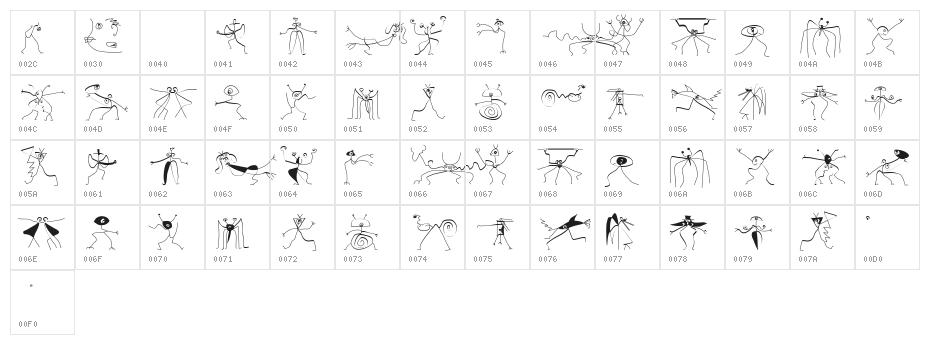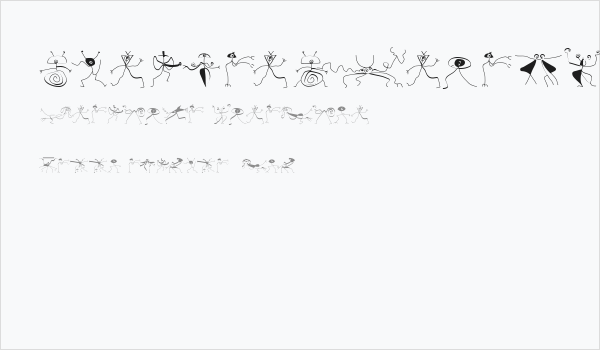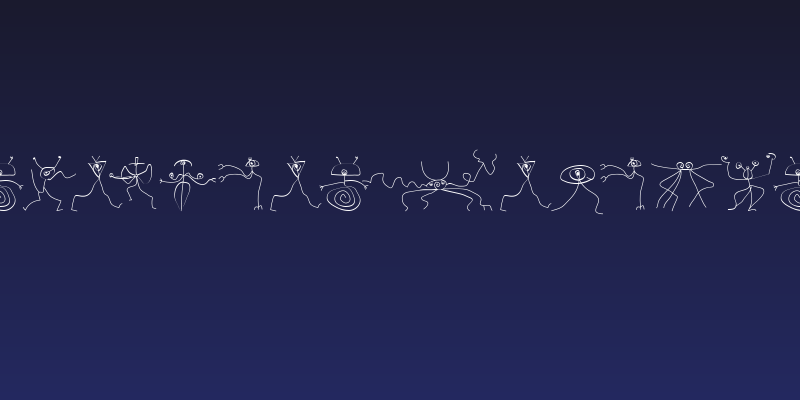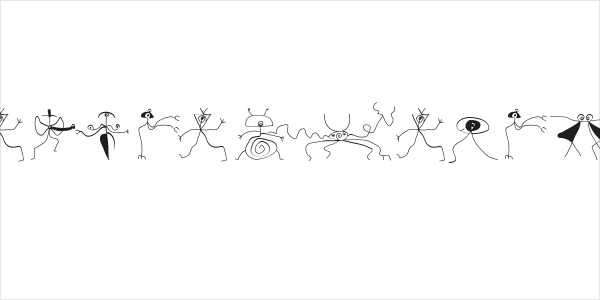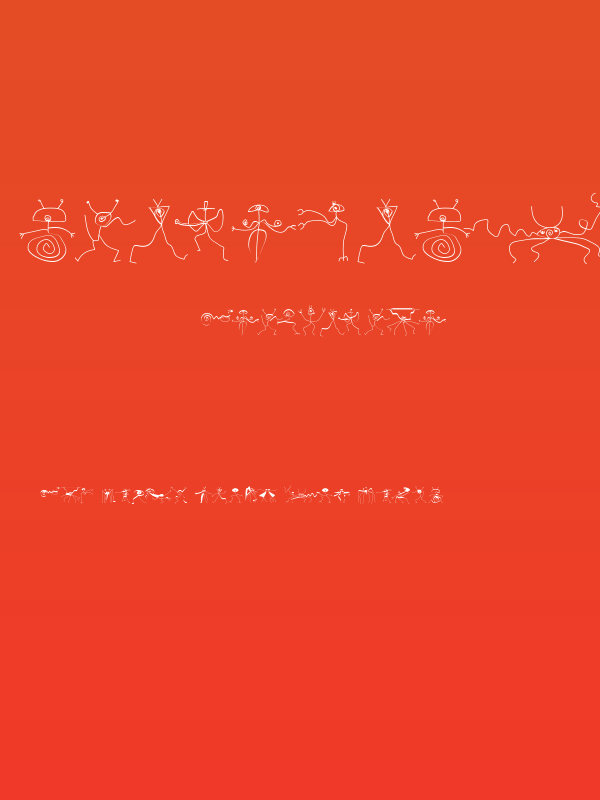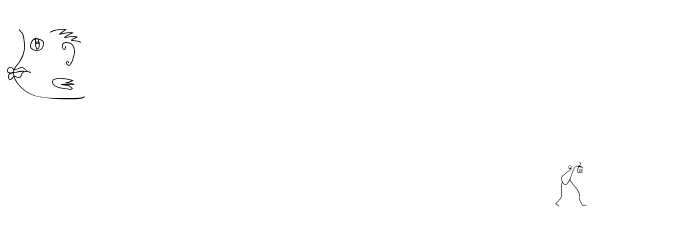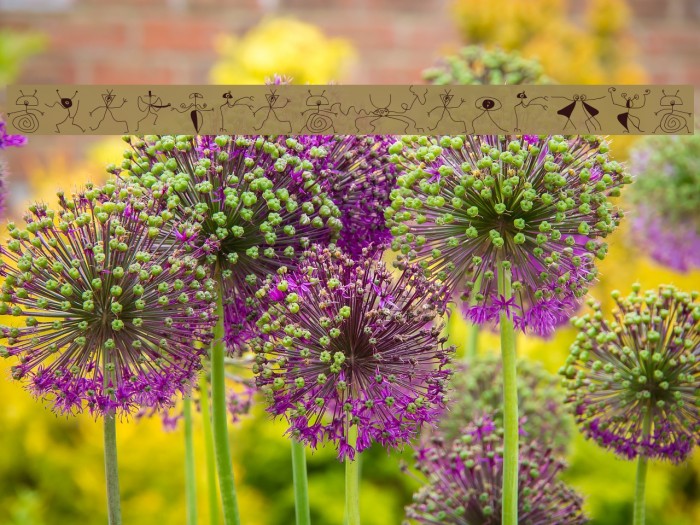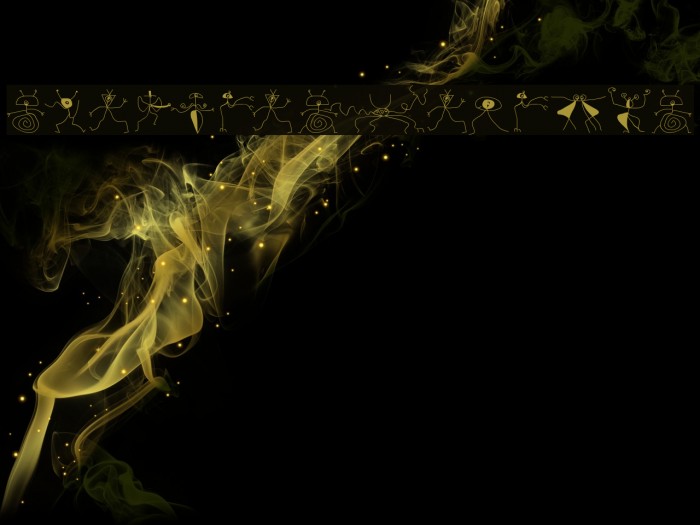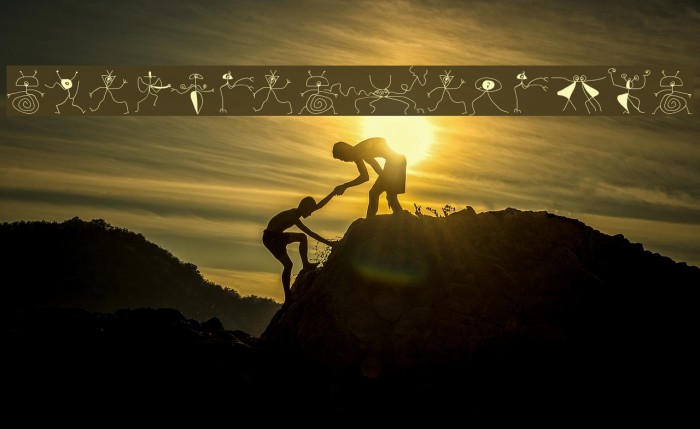
SprayersFriends Font
SprayersFriends Description
A whimsical, hand-drawn font composed of playful stick-figure characters and symbols, each letter and number represented by a unique, expressive figure with varying poses and accessories, giving a lively and animated appearance.
| Overall Style | Decorative, Whimsical, Artistic |
| Use Case | Logos, Posters, Invitations, Art projects |
| Proposed Projects | Children's books, party invitations, creative posters, comic strips, playful branding, art projects. |